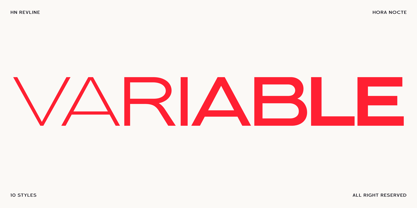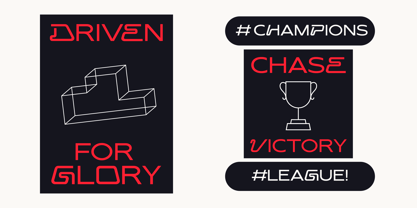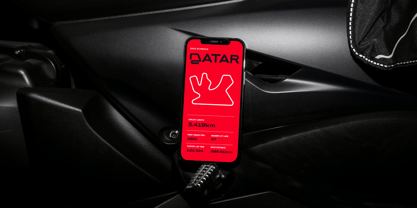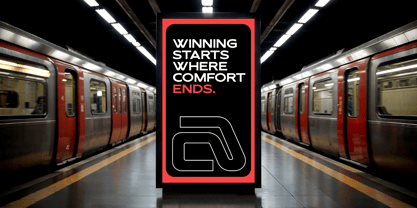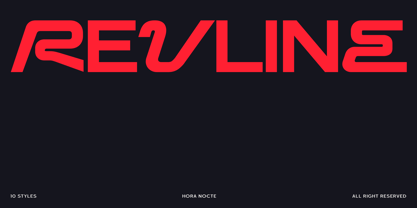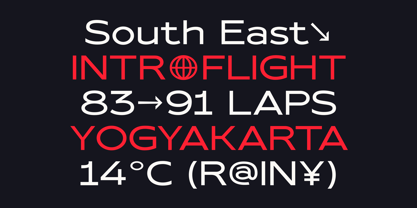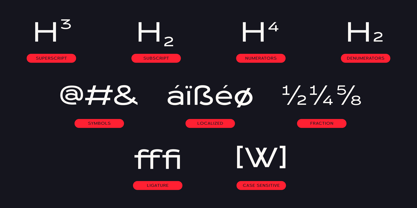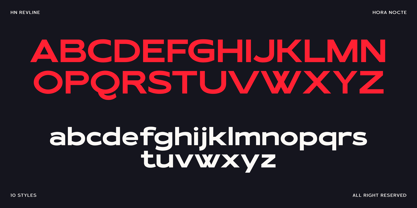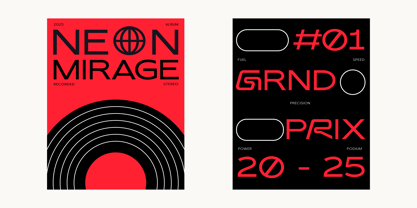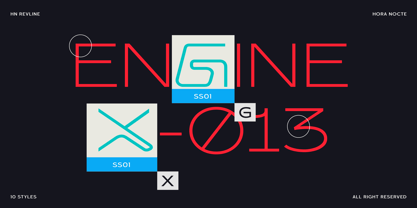
HN Revline
by Hora Nocte Type Foundry
The HN Revline Font Family was designed by Hasto Nugroho and published by Hora Nocte Type Foundry. HN Revline contains 10 styles and family package options. More about this family
HN REVLINE channels motion, energy, and precision through a sleek sans serif design. Inspired by racing, aerodynamics, and cutting-edge technology, it brings a clear sense of speed to the page. Sharp geometry and a bold rhythm give the letterforms a confident, technical voice suited to modern visual systems.
Use it for motorsport branding, digital interfaces, esports logos, and other high-performance design systems. It holds its own in display settings and stays legible in identity work, from dynamic headlines to streamlined tech layouts. Designed by hora nocte.
Hora Nocte Type Foundry was born from the pulse of motion and the silence of the night — a studio where rhythm meets geometry and typography becomes an act of rebellion. We design typefaces that move with intention: experimental, futuristic, and unapologetically bold. Each curve and corner is engineered to channel speed, energy, and control — merging the discipline of technology with the chaos of emotion. Hora Nocte speaks the language of strength and precision, built for the future of sport, tech, and design systems that never sleep. We believe type is more than letters — it’s momentum.